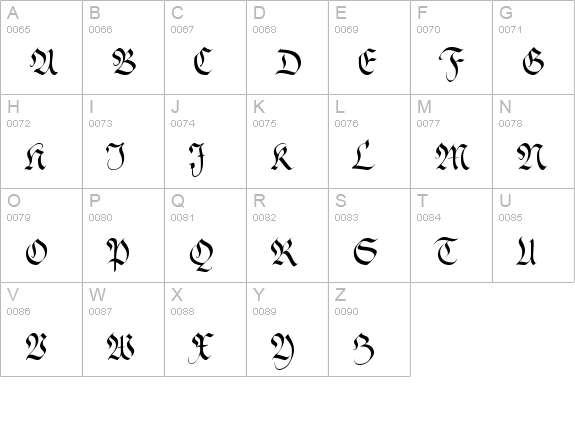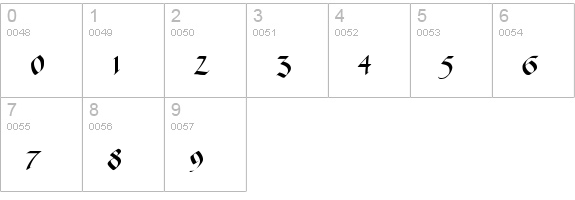
FederFrakturEF-Regular is the standard, neutral variant in the FederFrakturEF typeface family \xE2\x80\x94 well suited to general body text, paragraphs, and standard typographic work.
FederFrakturEF-Regular is a stunning and elegant font that embodies the classic beauty of Fraktur typography. Its intricate details and sharp angles give it a sophisticated and timeless appeal, making it perfect for adding a touch of vintage charm to your designs. This font exudes a sense of refinement and authority, making it ideal for formal occasions or projects that require a touch of old-world elegance. One of the best things about FederFrakturEF-Regular is that it is available for free download at FontsMarket.com. This means that you can easily access and use this exquisite font without any cost, allowing you to elevate your designs with its unique style and flair. Whether you're working on invitations, posters, or branding materials, FederFrakturEF-Regular is sure to make a statement and leave a lasting impression. Download this font today and add a touch of timeless beauty to your projects.